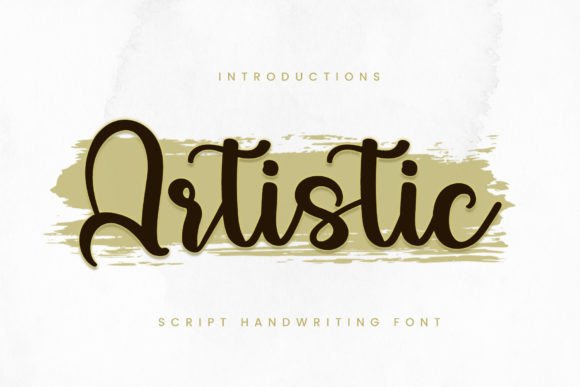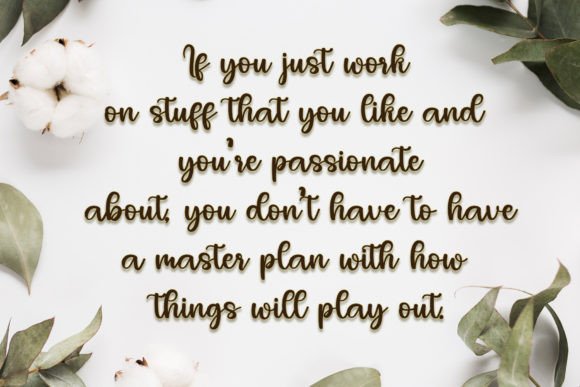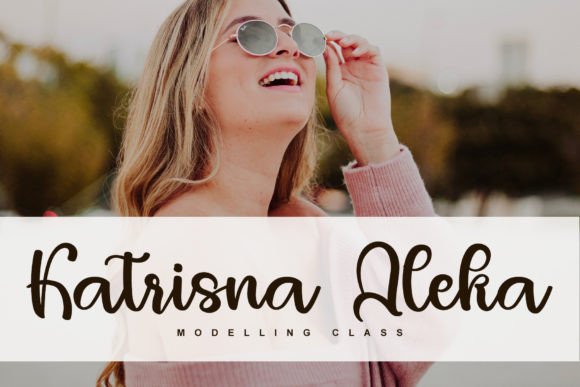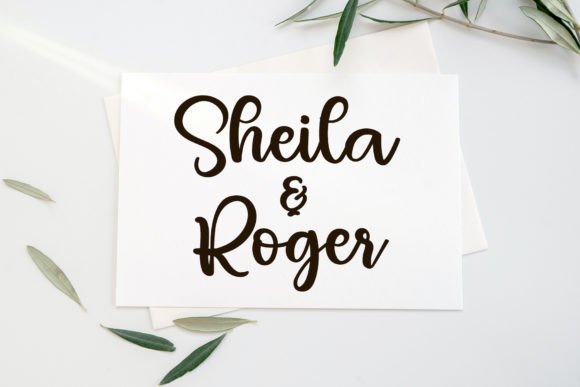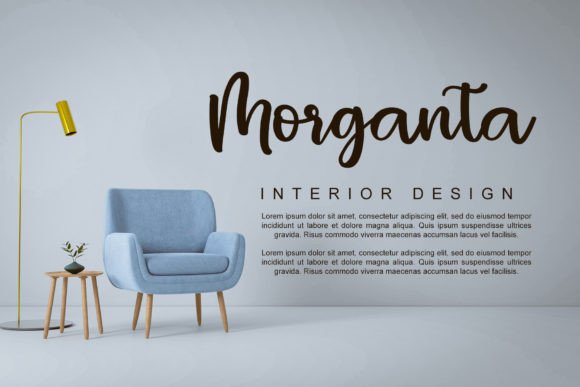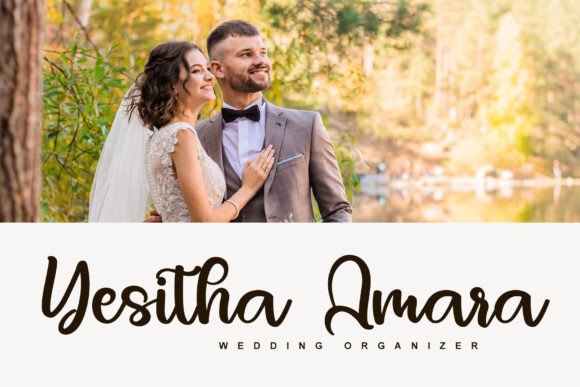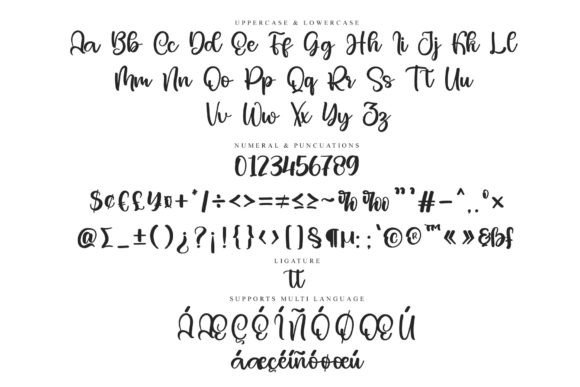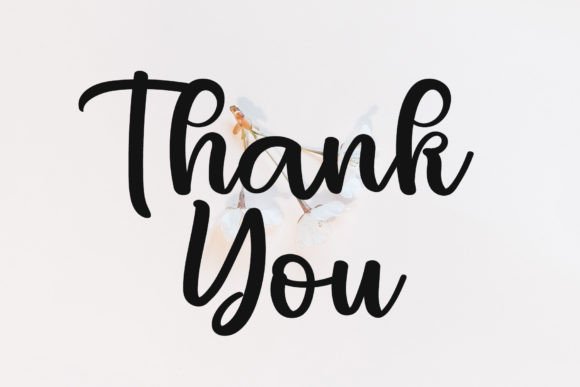
Artistic Font
About Artistic Font
Add Elegance to Your Projects with Artistic Font
Artistic font download offers a magical handwritten style that brings elegance and warmth to every design. Whether you’re creating social media posts, wedding invitations, or custom crafts, this typeface helps your work stand out with charm and clarity.
Designed for Versatility and Creativity
Artistic was created for designers who want a beautiful yet practical font. The smooth, flowing strokes make it a perfect match for both digital and print materials. Its simple charm adds personality without overwhelming your message. Because of its legibility, you can use it confidently across different projects, from thank-you cards to brand packaging.
Make a Strong Impression
Using Artistic helps you create designs that leave a lasting impact. Its handwritten style feels personal, while its clean design keeps things professional. Whether you’re making greeting cards or logo designs, this font supports your message and enhances emotional connection with your audience.
In summary, if you’re looking for a font that blends elegance, simplicity, and flexibility, Artistic is a fantastic choice. Its handcrafted look, easy access features, and wide application make it a valuable addition to any designer’s toolkit.